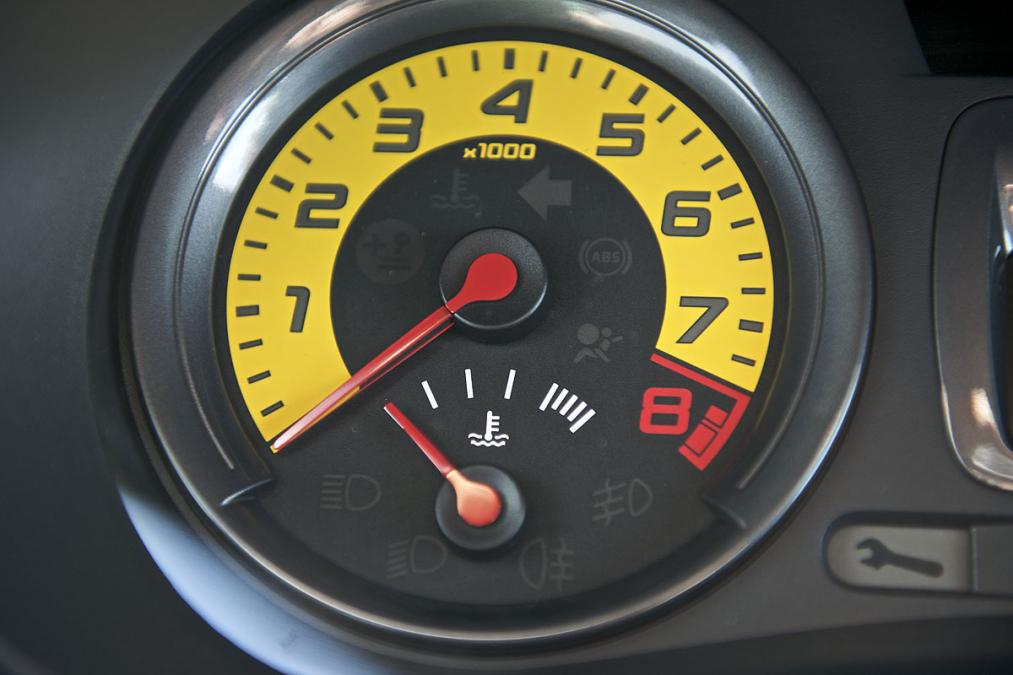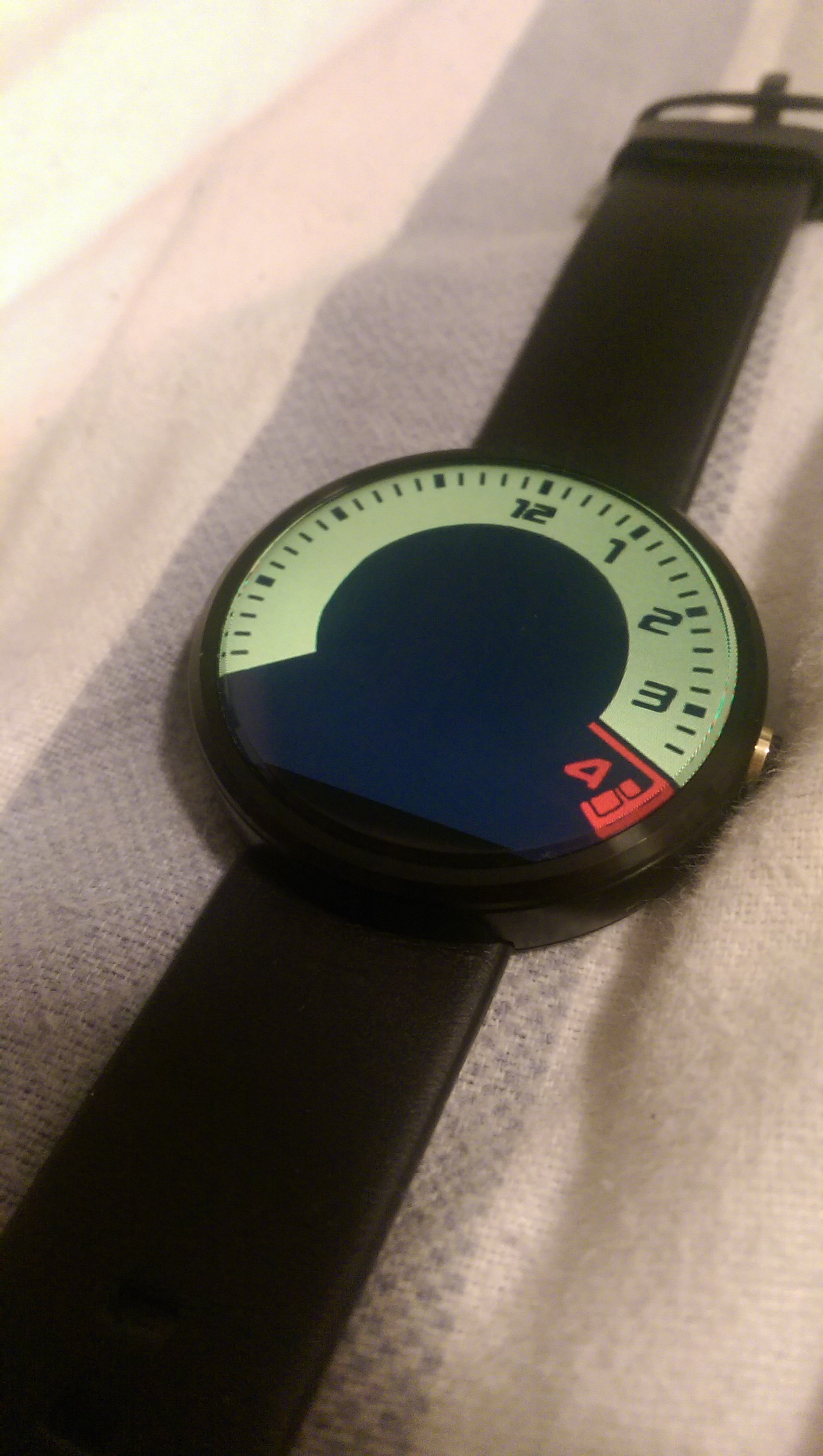
D dajones Car RS200 Jan 3, 2015 #1 The numbers on the rev counter. Does anyone know of a similar font?
Typhoon Gangsta ClioSport Moderator Car TT Jan 3, 2015 #2 Something like this? http://www.myfonts.com/fonts/efscangraphic/renault-sb/bold/ Just looks like they've 'squished' it a bit on the dials. Hmm, perhaps not;
D dajones Car RS200 Jan 4, 2015 #3 Im making a Watchface for my smart watch. Up to here so far. So I need a 9 and a 0. 10 and 11 i will just copy the 1 over. Not filling in 5, 6, 7 and 8 as I am going to use the Heater dial as a battery meter.
adamlstr ClioSport Club Member Car Cayman Jan 4, 2015 #5 For 9, just rotate the 6 180deg. For 0, edit the 8 in Illustrator.